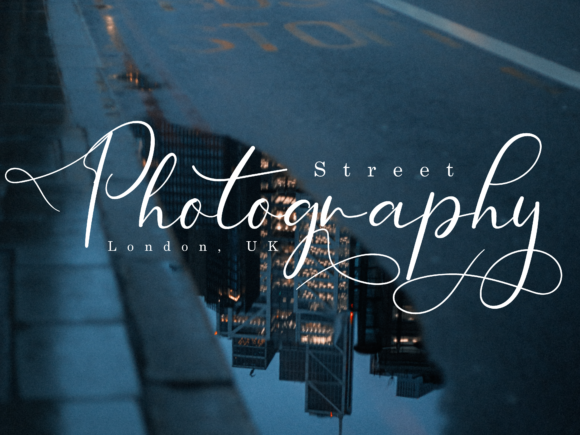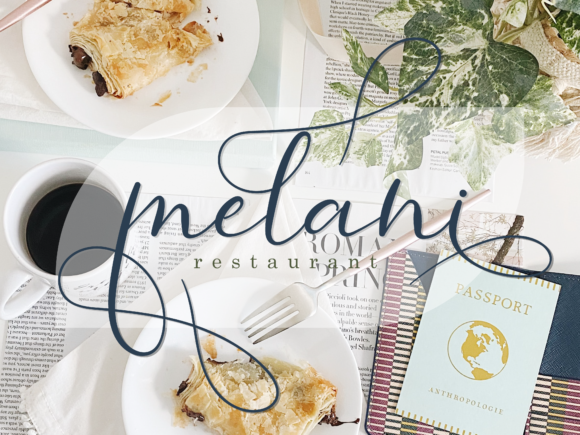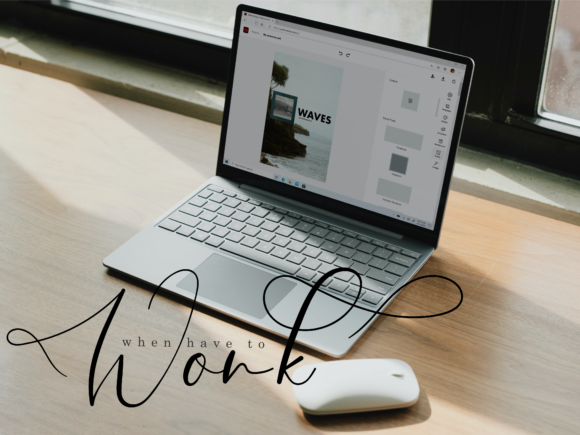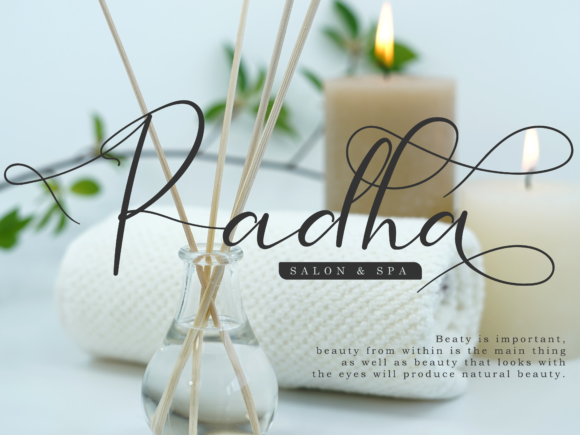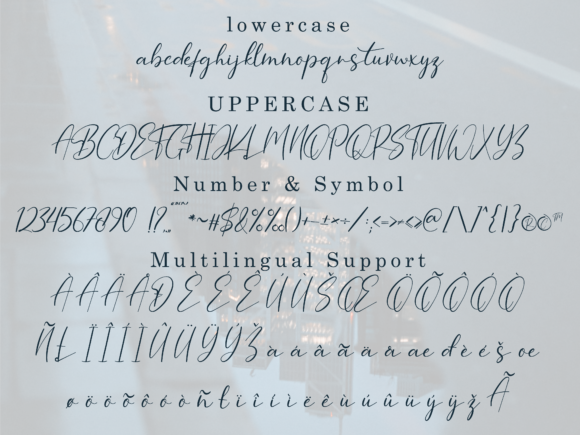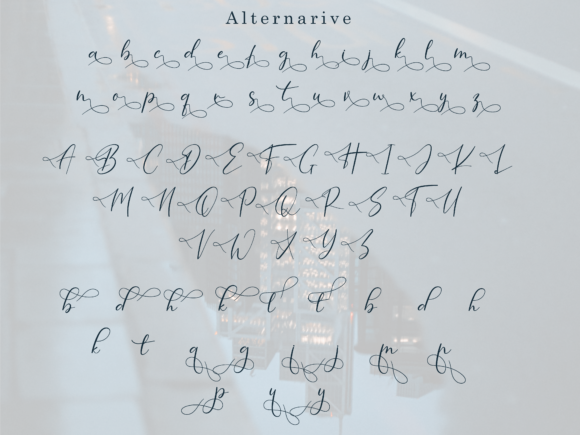
Discover the Beauty of Aztecs Font: Elevate Your Designs with Elegance and Sophistication
Are you a designer or crafter looking for a font that can add a touch of elegance and sophistication to your projects? Look no further than Aztecs Font, a beautiful and flowing handwritten font that is sure to impress. With its unique and stylish design, Aztecs Font is perfect for a wide range of applications, from wall displays and wedding invitations to social media posts and product packaging.
What Makes Aztecs Font So Special?
Aztecs Font is a truly unique and eye-catching font that is sure to make your designs stand out from the crowd. Its beautiful, flowing script is perfect for creating elegant and sophisticated designs that are sure to impress. Whether you’re looking to create a stunning wedding invitation, a stylish social media post, or a professional-looking product label, Aztecs Font is the perfect choice.
Uses for Aztecs Font
Aztecs Font is incredibly versatile and can be used for a wide range of projects, including:
- Wall displays: Create stunning wall displays with Aztecs Font that are sure to be the focal point of any room.
- Wedding invitations: Make your wedding invitations truly special with Aztecs Font, a beautiful and elegant script that is sure to impress.
- Social media posts: Add a touch of elegance and sophistication to your social media posts with Aztecs Font.
- Logos: Create professional-looking logos with Aztecs Font that are sure to make your brand stand out.
- Advertisements: Use Aztecs Font to create eye-catching advertisements that are sure to grab attention.
- Product packaging: Add a touch of elegance and sophistication to your product packaging with Aztecs Font.
- Product designs: Create stunning product designs with Aztecs Font that are sure to impress.
- Labels: Use Aztecs Font to create stylish and professional-looking labels.
- Photography: Add a touch of elegance and sophistication to your photography with Aztecs Font, perfect for watermarks or captions.
- Invitations: Create stunning invitations with Aztecs Font, perfect for any occasion.
- Stationery: Use Aztecs Font to create elegant and sophisticated stationery that is sure to impress.
Why Choose Aztecs Font?
There are many reasons why Aztecs Font is the perfect choice for your design projects. Here are just a few:
- Unique and stylish design: Aztecs Font has a unique and stylish design that is sure to make your designs stand out from the crowd.
- Elegant and sophisticated: Aztecs Font is perfect for creating elegant and sophisticated designs that are sure to impress.
- Versatile: Aztecs Font is incredibly versatile and can be used for a wide range of projects.
Tips for Using Aztecs Font
Here are a few tips for using Aztecs Font to get the most out of this beautiful font:
- Use it sparingly: Aztecs Font is a beautiful font, but it can be overwhelming if used too much. Use it sparingly to create a focal point in your design.
- Pair it with other fonts: Aztecs Font pairs well with other fonts, so don’t be afraid to experiment with different combinations.
- Experiment with different sizes: Aztecs Font looks great in a variety of sizes, so experiment with different sizes to find the one that works best for your project.
| Font Name | Aztecs Font |
| Author | Arief Indra Pratama |
Aztecs Font is a beautiful and flowing handwritten font that is sure to elevate your designs with elegance and sophistication. With its unique and stylish design, Aztecs Font is perfect for a wide range of applications, from wall displays and wedding invitations to social media posts and product packaging. Whether you’re a designer or crafter, Aztecs Font is a must-have font that is sure to impress.